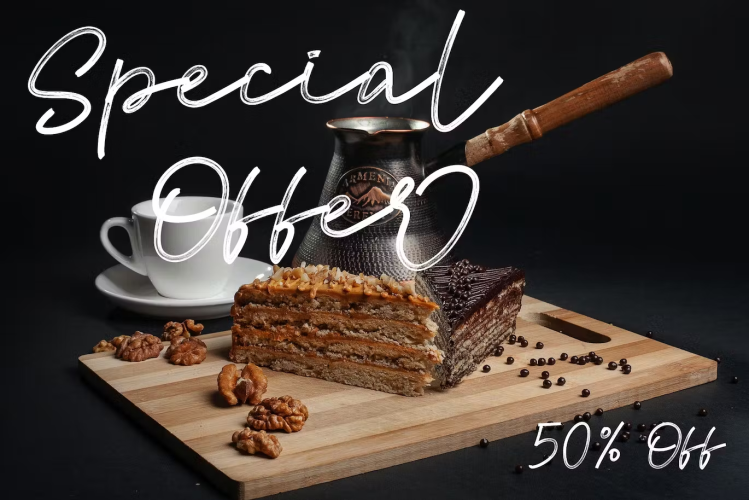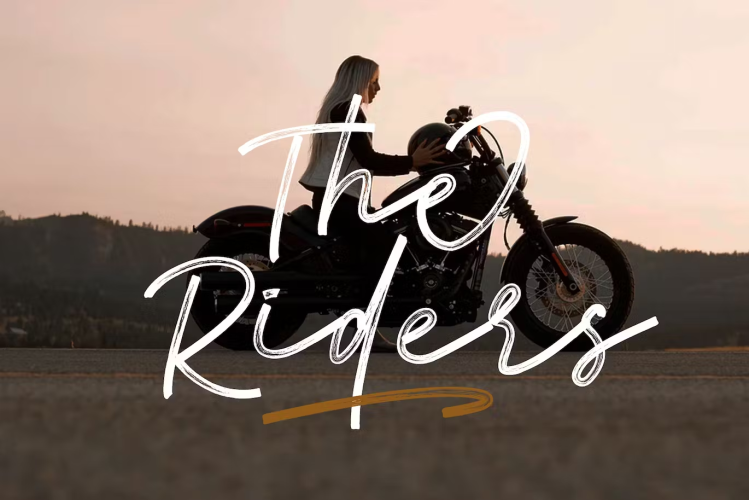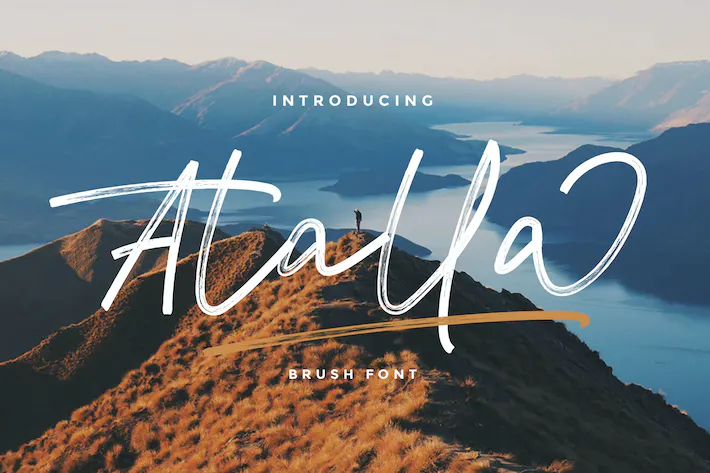
Atalla Font
Hi Ladies and Gentleman ! Proudly present Another styles brush font “Atalla”. This font is taken from Greek which means young, which can be interpreted professional. we keep this font looks classy, readable, stylish, catchy and easy to use. Atalla is the great choice for watermark on photography, signature or signature logo design, quotes, album cover, business card and many other design project. Atalla is here to make your work to high level!!!
Where Atalla Font works best
Headlines and titles
Atalla Font has enough character to carry a headline on its own; set it large and keep the supporting text plain.
Brand and product names
Short strings are where this typeface is strongest — a name, a label, a cover line.
Social and video graphics
Set Atalla Font over a flat colour or a quiet photograph so the letterforms stay the focus.
What kind of work does Atalla Font suit?